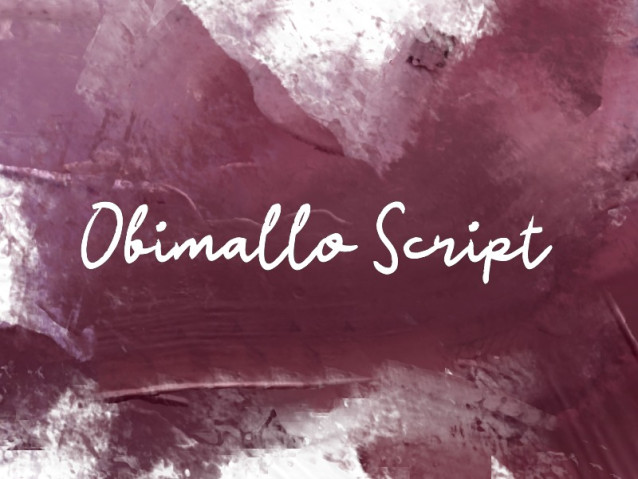
Obimallo Script Font
Obimallo Script Font is a simple and friendly handwritten font. Its natural and unique style makes it incredibly fitting to a large pool of designs. The only limit is your imagination!